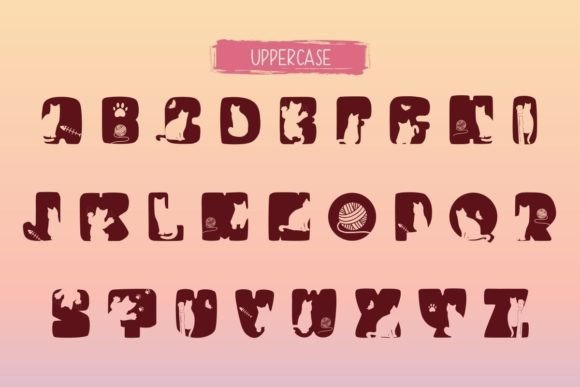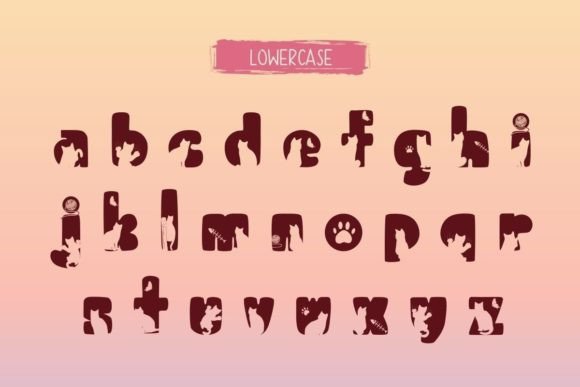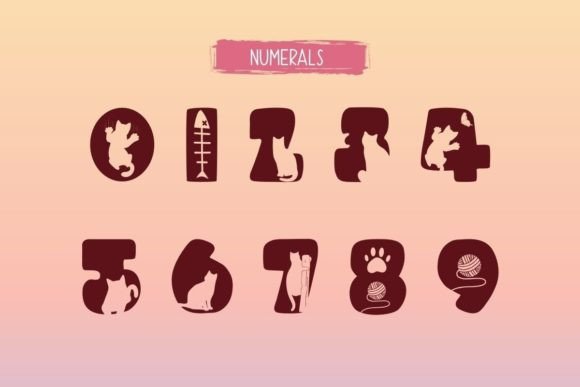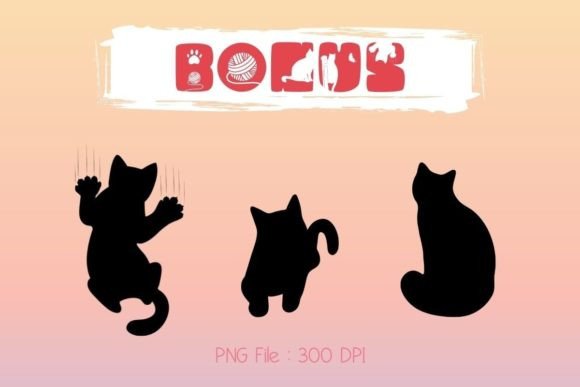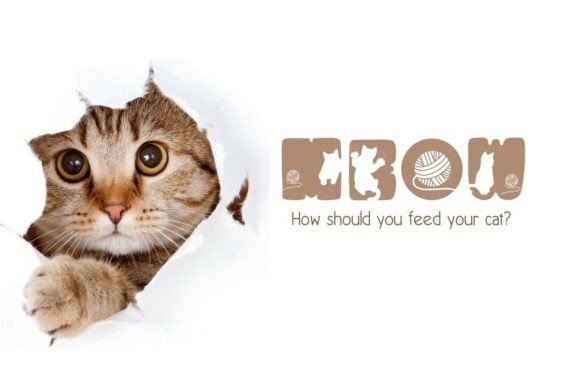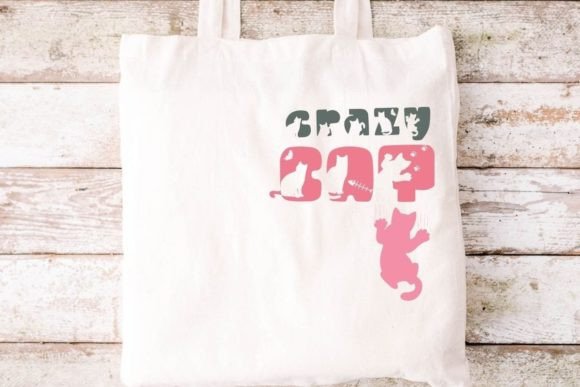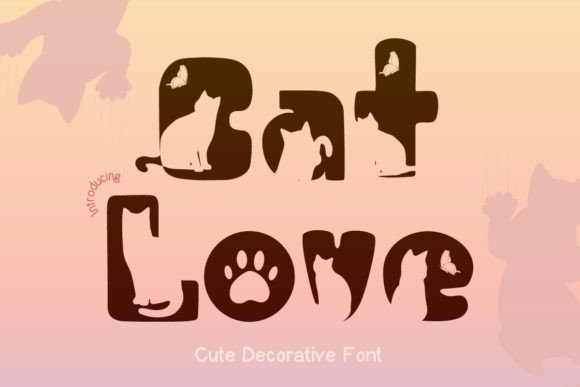
Introducing Cat Love Font: The Purrfect Addition to Your Design Collection
Are you a designer or crafter looking for a unique and playful font to add to your collection? Look no further than Cat Love Font, a cute decorative typeface that’s sure to delight. This charming font combines bold characters with adorable cat silhouettes, creating a surprisingly cute new style that’s perfect for a variety of design projects.
What is Cat Love Font?
Cat Love Font is a decorative typeface that features a range of cat silhouettes integrated with bold, playful characters. The font’s design is both cute and quirky, making it an excellent choice for designers and crafters who want to add a touch of whimsy to their work. Whether you’re creating a back-to-school themed design or simply looking for a fun and unique font to add to your collection, Cat Love Font is the purrfect choice.
Features of Cat Love Font
So, what makes Cat Love Font so special? Here are just a few of its key features:
- Cute and quirky style: Cat Love Font has a unique and playful design that’s sure to capture the hearts of cat lovers everywhere.
- Versatile: This font is suitable for a wide range of design projects, from banners and social media posts to mugs, cards, and shirts.
- High-quality design: The font is designed with high-quality graphics, ensuring that it looks great even at large sizes.
Uses for Cat Love Font
So, what can you use Cat Love Font for? The possibilities are endless! Here are a few ideas to get you started:
- Banners: Create eye-catching banners for back-to-school promotions, sales, or special events.
- Social media posts: Add a touch of whimsy to your social media posts with Cat Love Font.
- Mugs and water bottles: Design fun and playful mugs and water bottles for cat lovers.
- Cards and invitations: Create custom cards and invitations for special occasions, such as birthdays or graduations.
- Shirts and apparel: Design t-shirts, hoodies, and other apparel items featuring Cat Love Font.
- Stationary art: Use Cat Love Font to create beautiful stationary art, such as journals, notebooks, or greeting cards.
Why Choose Cat Love Font?
With so many fonts available, why choose Cat Love Font? Here are just a few reasons:
- Unique design: Cat Love Font has a one-of-a-kind design that’s sure to stand out in a crowd.
- Versatile: Cat Love Font can be used for a wide range of design projects, from digital designs to print materials.
- High-quality graphics: The font features high-quality graphics, ensuring that it looks great even at large sizes.
If you’re looking for a fun and playful font to add to your collection, look no further than Cat Love Font. With its unique design, versatility, and high-quality graphics, this font is sure to delight designers and crafters alike. Whether you’re creating a back-to-school themed design or simply looking for a cute and quirky font to add to your collection, Cat Love Font is the purrfect choice.